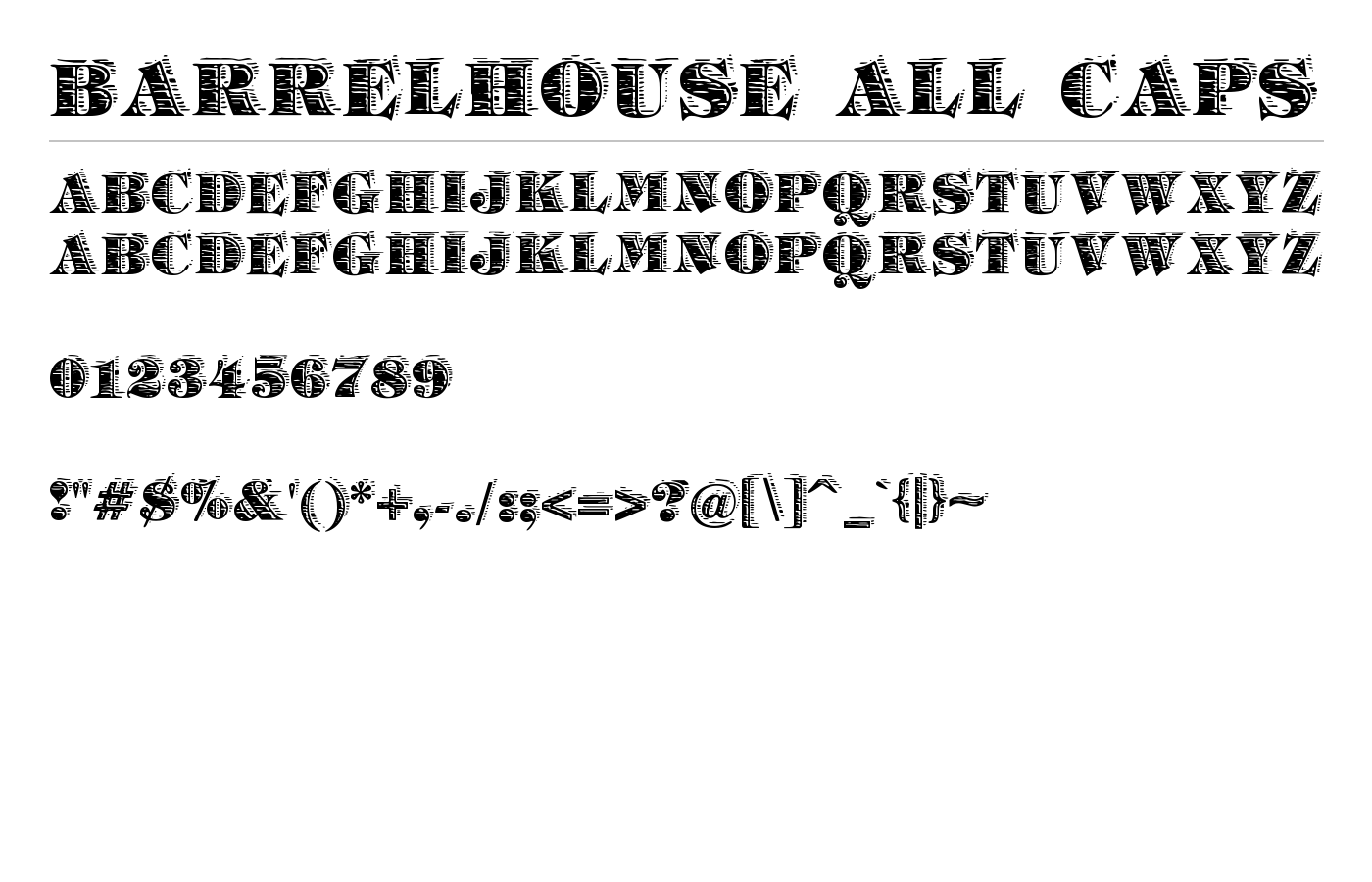
Barrelhouse All Caps is a bold, decorative slab serif font that features a distressed, textured look with strong contrast between thick and thin strokes. Its all-caps design and rugged detailing give it a vintage, industrial feel, perfect for creating eye-catching headlines, logos, or posters that need a bold, old-fashioned character. This font works well in branding and packaging where a nostalgic yet strong personality is desired.
Barrelhouse All Caps Font
About Barrelhouse All Caps Font